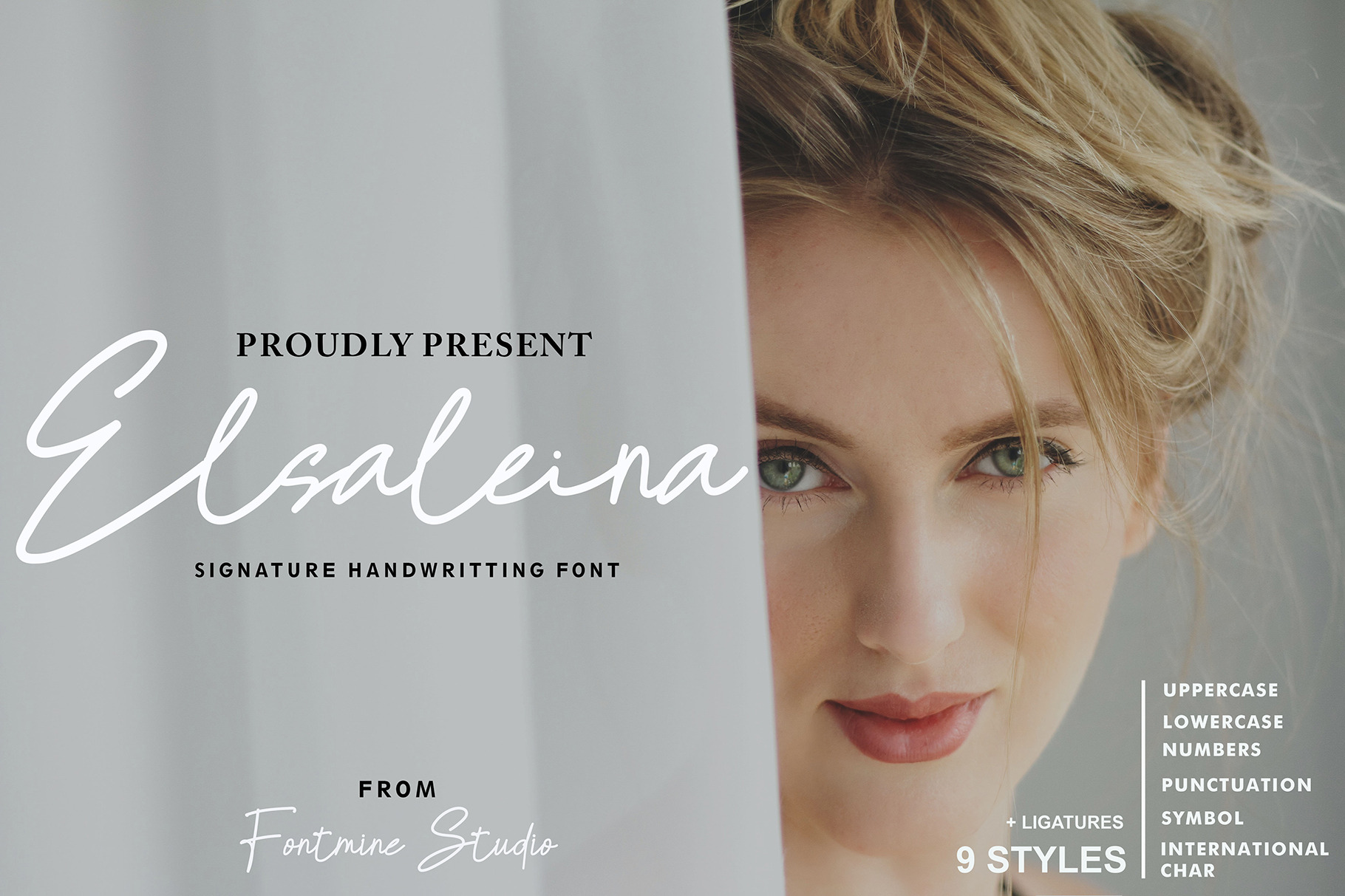
Elsaleina Stylist Handwritting Font
Elsaleina is a fashionable and chilled handwriting signature script font. It is perfect for logos & branding, invitation, stationery, wedding designs, social media posts, advertisements, product packaging, or anything that needs a handwriting taste.
- Ton of glyphs (include Uppercase, Lowercase, Numerals & Punctuations, Ligature)
- Fonts include multilingual support for; Afrikaans, Albanian, Catalan, Danish, Dutch, English, French, Hungarian, Icelandic, Italian, Spanish, Portuguese, German, Swedish, Norweigen, Polish, Indonesian, Turkish, Zulu